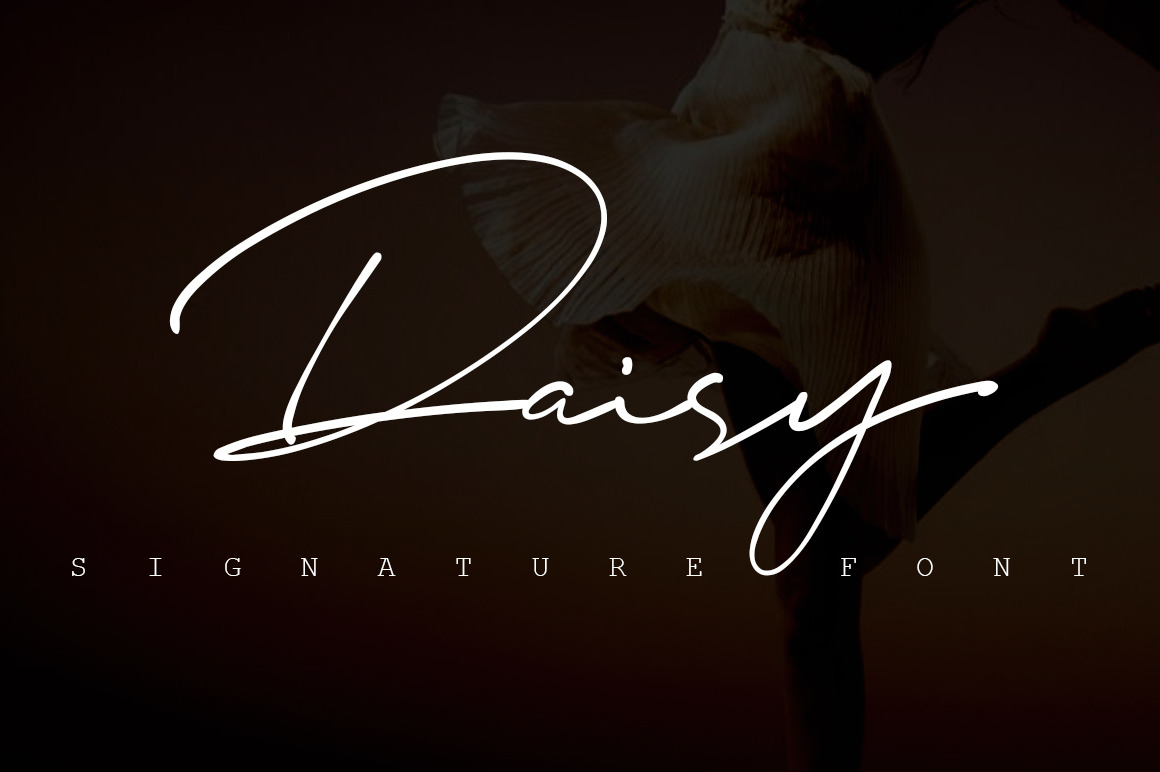
Daisy Signature font
Daisy is a handwritten style signature fonts, with her elegant style and a variety of characters.That contains upper & lowercase characters and the first or end letter ligature, can meet your signature requirements.